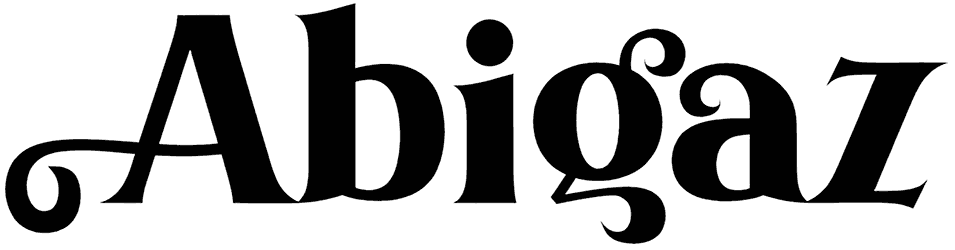
Abigaz Font
The serif font used in this one has a massive difference from the other ones in its category: the groovy rolls that are unusual in formal serif letters. The Abigaz font reminds the viewer of high-class 19th-century gentlemen’s clubs and their elegant balls.
You can use the rolls in alternative places and create a new look for your book title, movie poster, club banner, and website design.